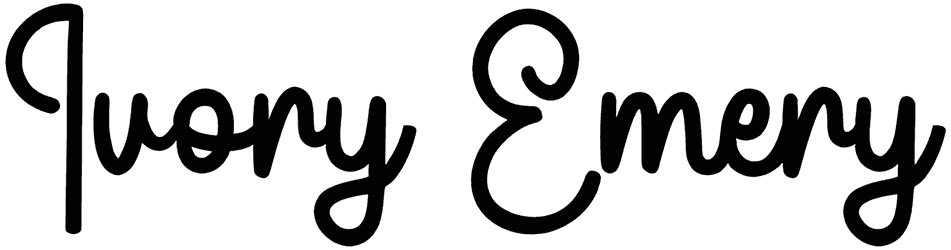
Ivory Emery Font
The ideal font for giving your creations a distinctive touch is Ivory Emery. This handwritten font is classy and refined, with a distinctive flow that sets it apart. This invitation font will add a touch of elegance to your next project, whether you’re making a wedding invitation, a logo, or a social media post.